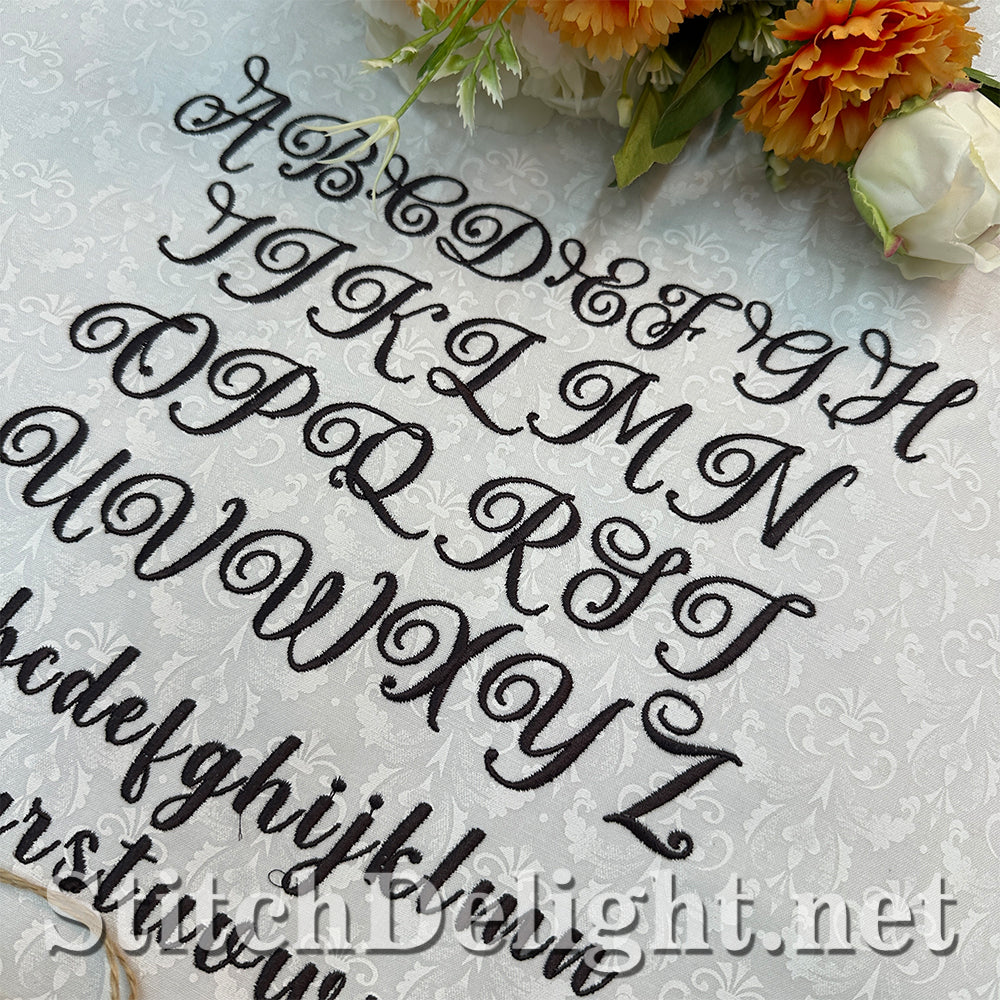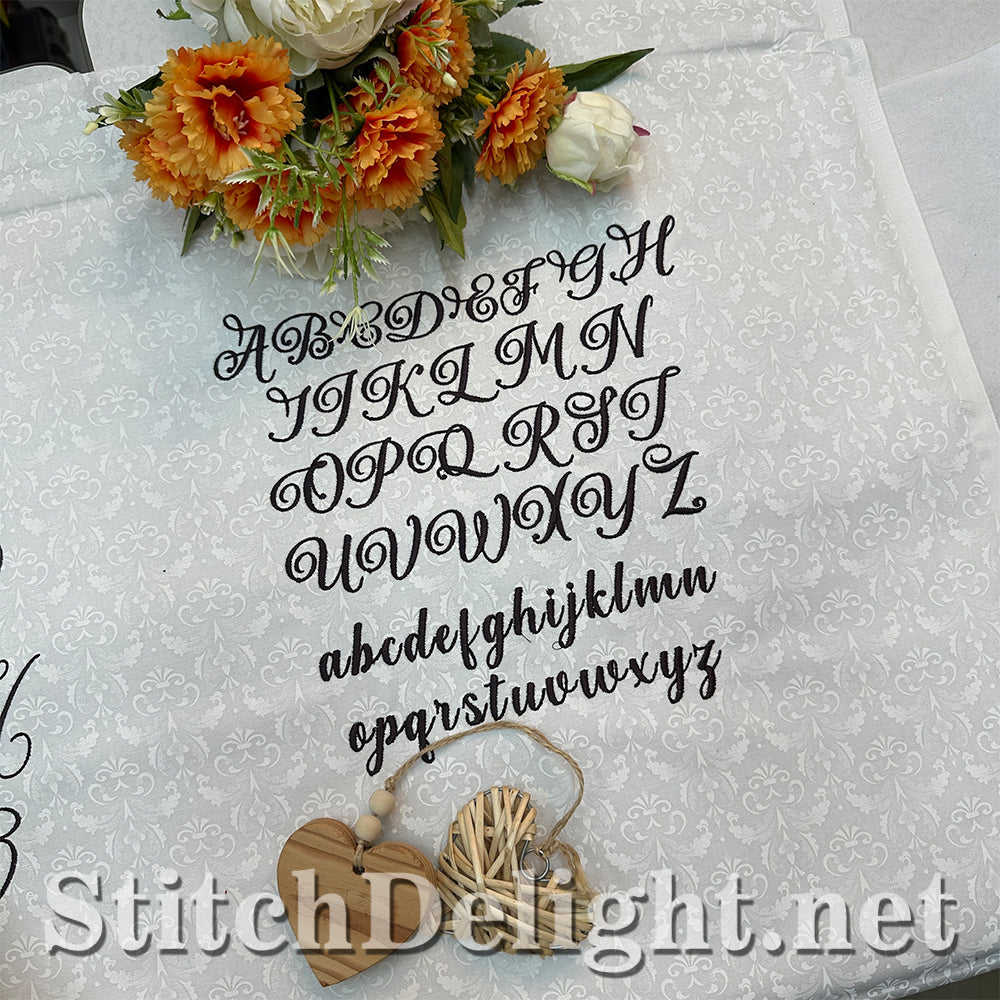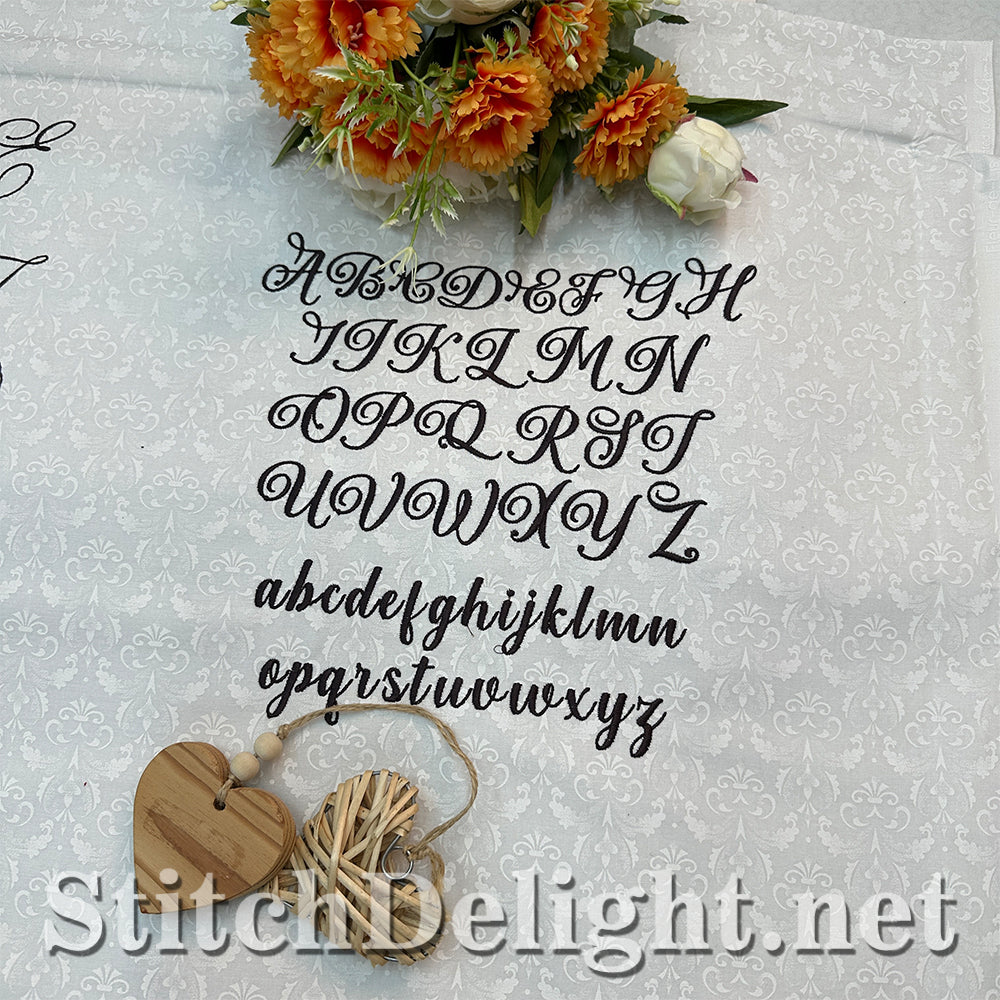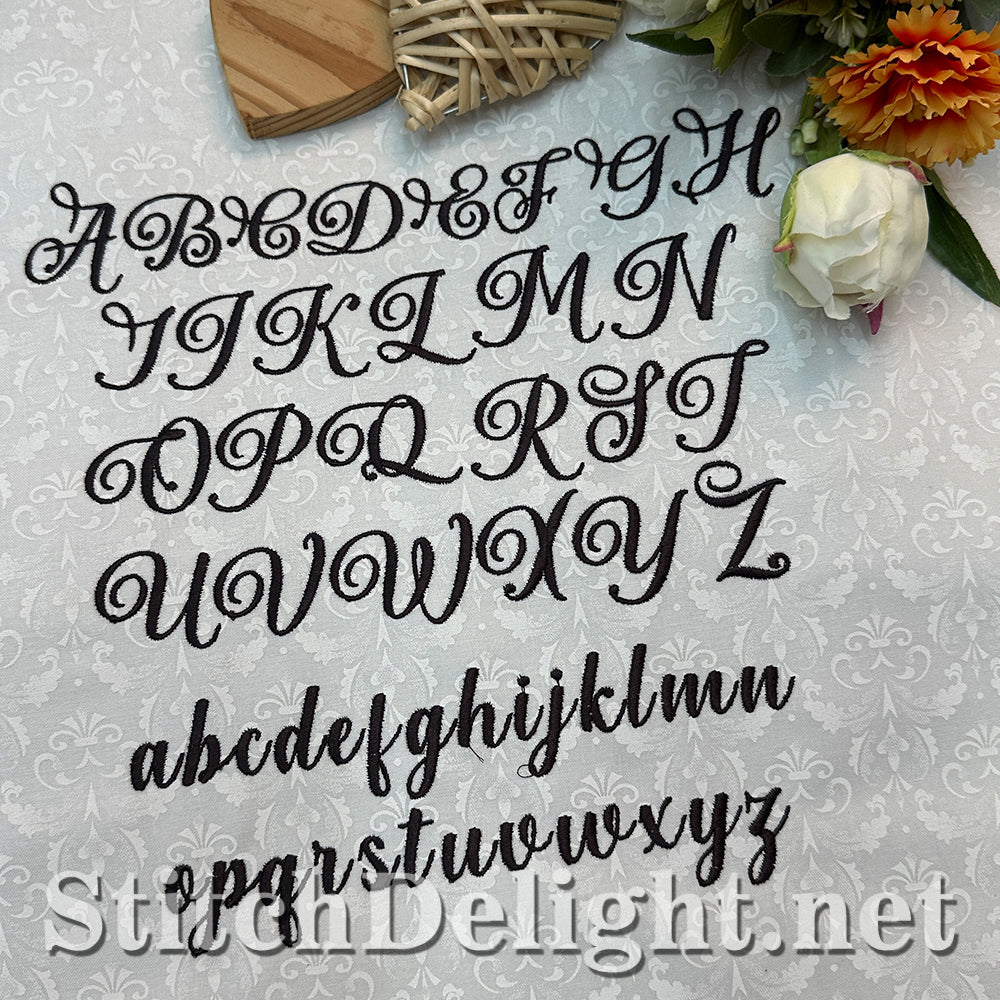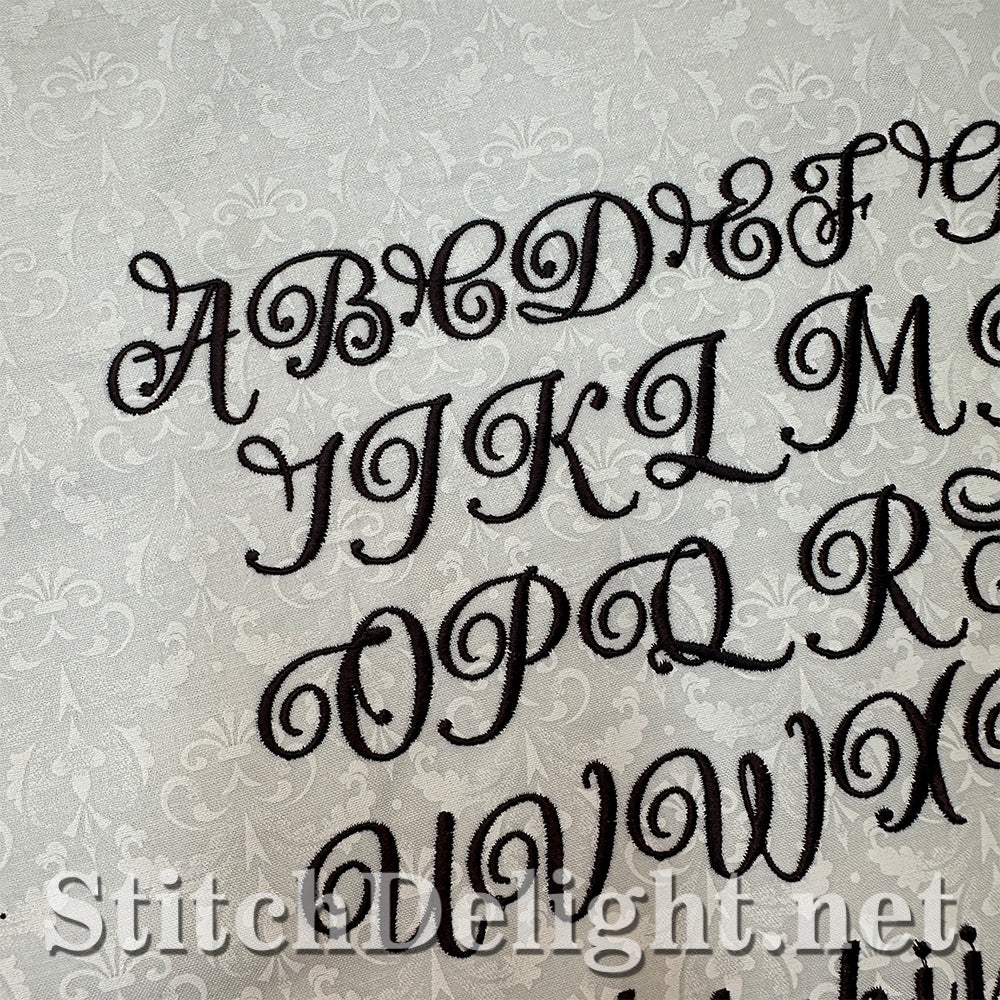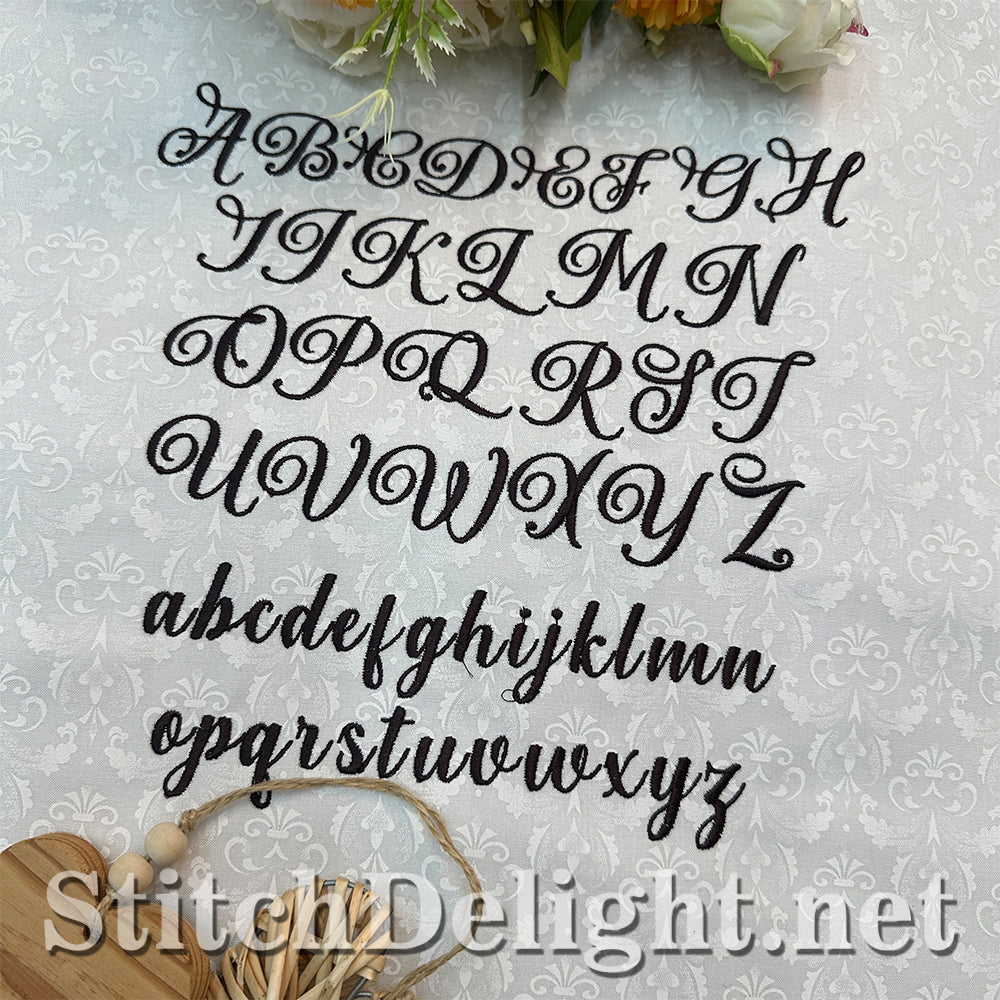
SDS4476 Monogram Elegance Font
This font is stylish and elegant and perfect for monograms on towels and linen.  I used this font in the Crest set - CLICK HERE to view
Letter height is 22mm or 0.86 inch